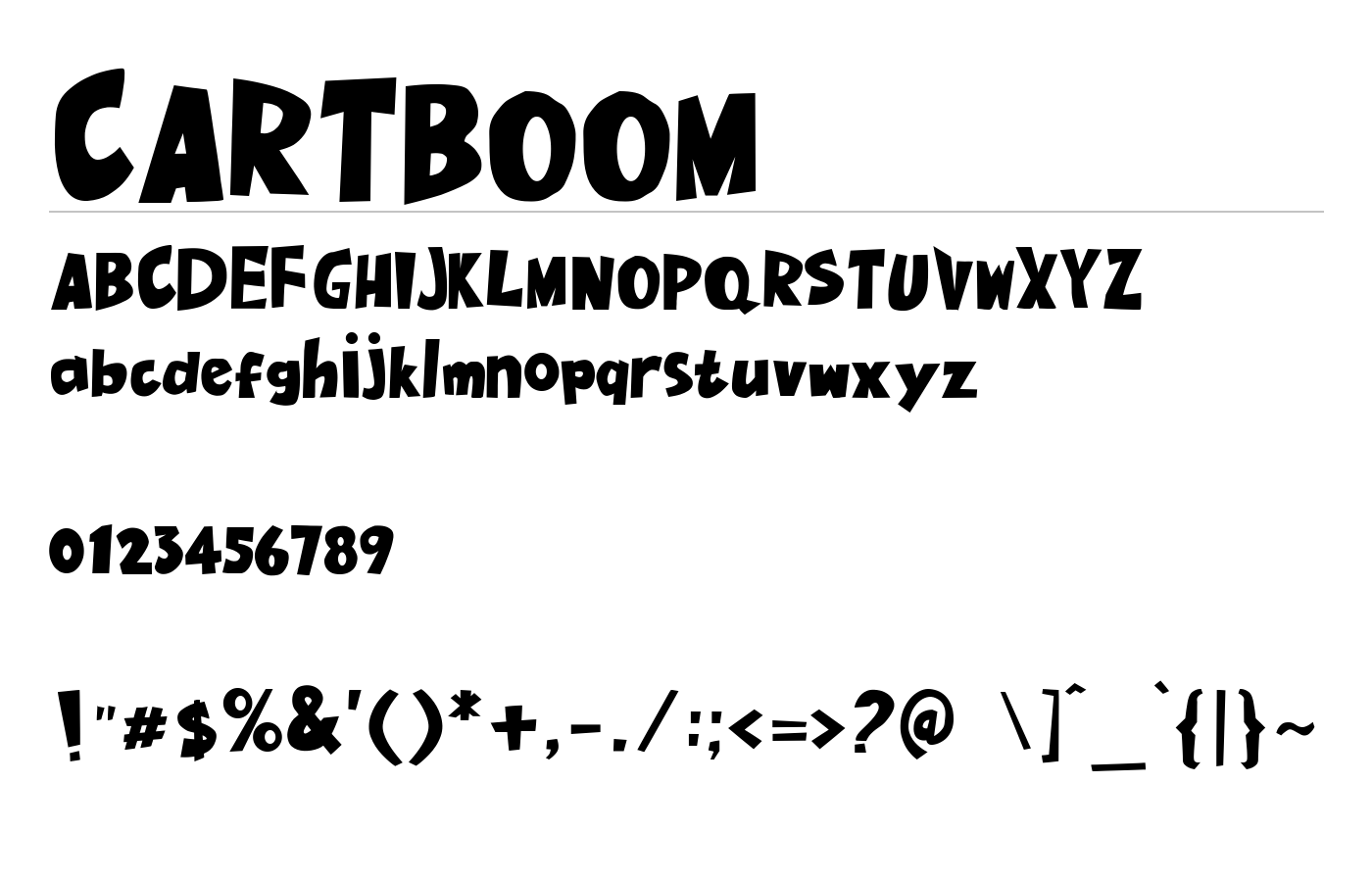
Cartboom is a bold, playful sans serif font with a strong, chunky appearance and irregular character shapes that give it a fun, casual vibe. Its wide letterforms and energetic, slightly quirky style make it perfect for informal branding, children’s products, posters, and any design needing a lively, approachable personality. This font shines in headlines and logos where a strong, friendly impact is desired.
Cartboom Font
About Cartboom Font
| Designer | Sheillatype |